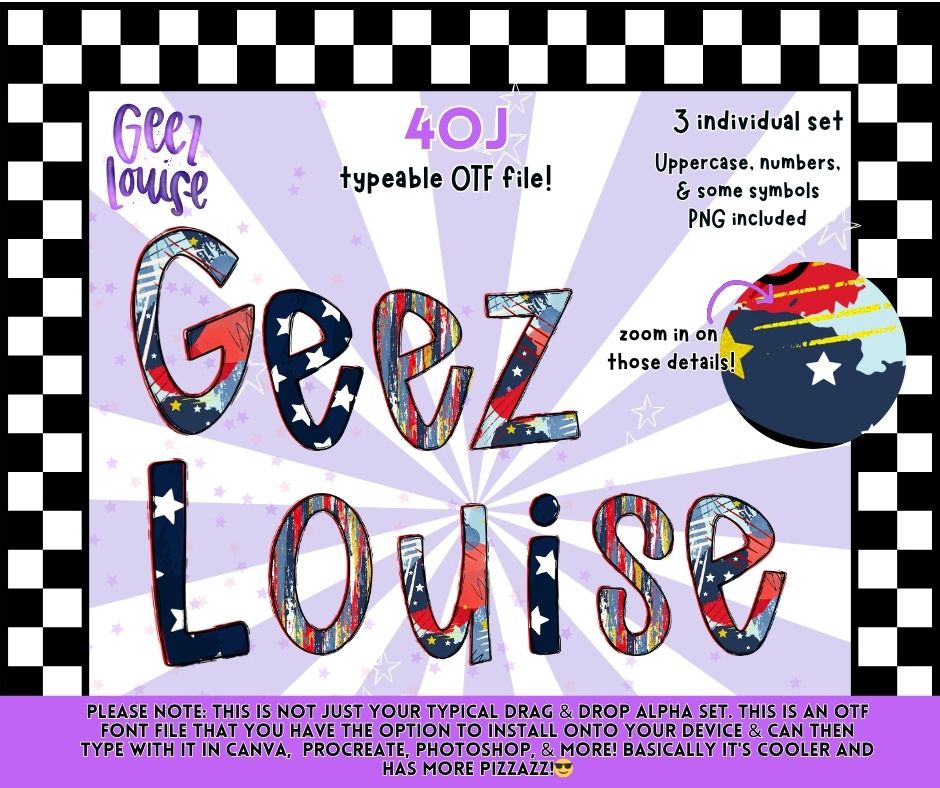
4th of July OTF Font | Patriotic Alphabet Set | Typeable Font PNG Bundle | Red White Blue Alpha
Red, white, and ready to create 🇺🇸🔥
The “4th of July” typeable OTF font set brings bold patriotic vibes straight into your designs. With distressed, star-spangled details and a mix of textures, this alphabet is perfect for creating standout graphics for all your summer and holiday projects.
✔️ Unique mixed patriotic textures
✔️ Perfect for layering and customizing